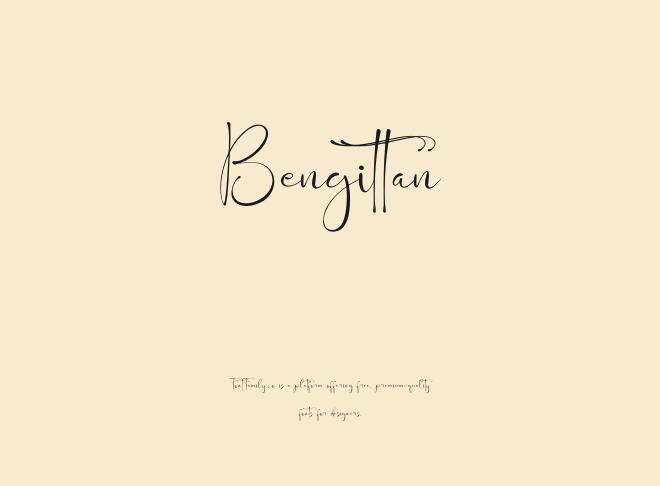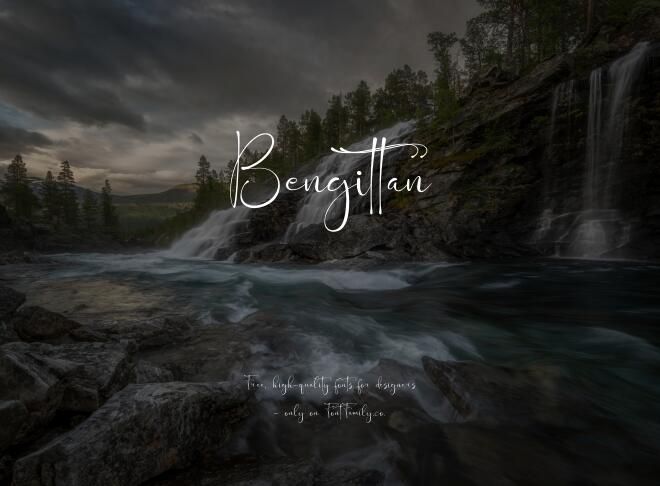
Bengittan Font
Bengittan Font is a beautifully handcrafted script typeface that embodies elegance and decoration. Designed by the renowned Font Foundry Co., this typeface stands out with its intricate design and distinctive style. Its handwritten style gives a personal touch, making it perfect for wedding invitations, greeting cards, or any design that requires a touch of elegance. Bengittan Font is comparable to other high-end script typefaces yet sets itself apart with its unique charm. It's an excellent choice for designers aiming to bring a sophisticated and decorative touch to their work. Despite its intricate design, Bengittan is surprisingly versatile, complementing a range of design aesthetics from classic to modern. Download Bengittan Font today to add a touch of elegance to your designs.